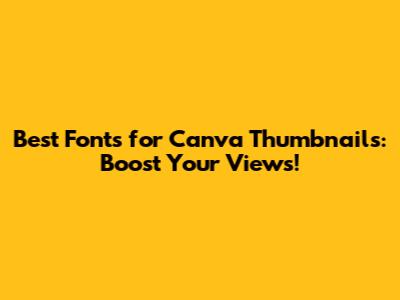
Best Fonts For Canva Thumbnails: Boost Your Views!
Creating eye-catching thumbnails is super important for getting more views on your videos or grabbing attention on social media. And Canva makes it easy! But with so many fonts to choose from, how do you pick the best fonts for your thumbnails? Don't worry, guys, I've got you covered! This guide will walk you through selecting fonts that not only look great but also help your content stand out from the crowd.
Why Font Choice Matters for Thumbnails
Think of your thumbnail as a mini-advertisement. It's the first thing people see, and it needs to make a strong impression fast. The right font can communicate the tone and topic of your content instantly. A playful font might suit a comedy video, while a bold, strong font could be perfect for a tutorial or announcement. Choosing the wrong font, on the other hand, can make your thumbnail look unprofessional or, even worse, cause people to scroll right past it! The best fonts are those that are legible, attention-grabbing, and representative of your brand and content. Legibility is key; if people can't read your text, they won't click. Attention-grabbing fonts draw the eye and pique curiosity. And fonts that match your brand help maintain consistency and build recognition. Ultimately, the font you select plays a crucial role in determining whether someone clicks on your thumbnail and engages with your content. Investing time in selecting appropriate fonts can significantly improve click-through rates and overall viewership.
Top Font Recommendations for Canva Thumbnails
Okay, let's dive into some specific font recommendations that work well in Canva for thumbnails. I've broken them down into categories to make it easier to find what you're looking for. Remember, the best fonts will depend on your specific style and the message you want to convey.
Bold and Impactful Fonts
- Bebas Neue: This is a classic for a reason! It's tall, clean, and super legible, even at smaller sizes. It's great for headlines and titles that need to pop. Bebas Neue is a sans-serif font known for its clean lines and tall, condensed design. Its bold presence makes it highly legible and impactful, even in smaller sizes, rendering it an excellent choice for thumbnail text that needs to grab attention instantly. Its versatility extends to various content themes, from informative tutorials to engaging vlogs. Whether you're announcing a new product, sharing tips, or creating eye-catching titles, Bebas Neue helps ensure your message is seen and read, contributing to higher click-through rates and audience engagement. Its widespread popularity and timeless appeal make it a staple in any content creator's toolkit, reinforcing its status as a top recommendation for Canva thumbnails.
- Montserrat: A versatile sans-serif that comes in various weights, making it easy to find the perfect level of boldness. Montserrat is a versatile sans-serif font that offers a range of weights, making it easy to customize your thumbnail text for the perfect level of emphasis. Its clean and modern design ensures legibility across different sizes, making it suitable for both headlines and supporting text. The adaptability of Montserrat allows it to complement various content styles, from professional tutorials to casual vlogs, ensuring your message is communicated effectively. By carefully selecting the appropriate weight, you can create a balanced and visually appealing thumbnail that grabs viewers' attention and encourages clicks. Its widespread use and positive reception among designers and content creators further solidify its reputation as a reliable choice for enhancing the visual impact of your Canva thumbnails.
- Oswald: Another strong sans-serif option that's slightly more rounded than Bebas Neue. Oswald is a sturdy sans-serif font that offers a slightly rounded appearance compared to other bold fonts like Bebas Neue. This subtle difference provides a softer, more approachable feel, making it an excellent option for thumbnails aiming to convey a friendly yet authoritative tone. Its clear and legible design ensures that your message remains easily readable, even at smaller sizes, enhancing the overall impact of your thumbnail. Oswald's versatility makes it suitable for a wide range of content, from educational videos to engaging personal vlogs. Its rounded edges help create a welcoming visual that can attract more viewers and encourage them to click, making it a valuable asset in your thumbnail design toolkit.
Modern and Stylish Fonts
- Raleway: An elegant sans-serif that works well for a variety of topics. Raleway is an elegant sans-serif font that offers a refined and stylish look, making it a great choice for a variety of topics. Its clean lines and balanced letterforms ensure legibility and visual appeal, enhancing the overall aesthetic of your thumbnails. The versatility of Raleway allows it to seamlessly adapt to different content styles, from sophisticated tutorials to creative vlogs, adding a touch of class to your visuals. Whether you're creating thumbnails for beauty, fashion, or lifestyle content, Raleway helps convey a sense of elegance and professionalism, attracting viewers and encouraging them to explore your content further. Its widespread popularity and positive reception among designers make it a reliable option for enhancing the visual impact of your Canva thumbnails.
- Poppins: A geometric sans-serif that's clean, modern, and easy to read. Poppins is a geometric sans-serif font that combines cleanliness, modernity, and readability, making it an excellent choice for Canva thumbnails. Its simple yet stylish design ensures that your message is easily conveyed, even at smaller sizes. The versatility of Poppins allows it to adapt seamlessly to various content styles, from tech tutorials to creative vlogs, ensuring a cohesive visual appearance. Whether you're highlighting key points, announcing updates, or simply adding text to your thumbnails, Poppins helps create a polished and professional look that attracts viewers and encourages engagement. Its geometric structure and balanced letterforms make it a reliable and visually appealing option for enhancing the overall impact of your thumbnails.
- Lato: A readable sans-serif that's friendly and approachable. Lato is a readable sans-serif font known for its friendly and approachable appearance, making it an excellent choice for Canva thumbnails aiming to connect with viewers. Its open letterforms and balanced design ensure legibility across different sizes, allowing your message to be easily understood. The versatility of Lato makes it suitable for a wide range of content styles, from informative tutorials to engaging personal vlogs. Whether you're sharing tips, telling stories, or simply adding text to your thumbnails, Lato helps create a welcoming visual that encourages clicks and engagement. Its widespread popularity and positive reception among designers further solidify its reputation as a reliable option for enhancing the visual impact of your thumbnails.
Creative and Unique Fonts
- Luckiest Guy: A fun and quirky font that's great for grabbing attention. Luckiest Guy is a fun and quirky font designed to grab attention, making it an excellent choice for Canva thumbnails that need a playful touch. Its bold, cartoon-like letters instantly draw the eye and create a memorable visual impact. While not suitable for all content types, Luckiest Guy works exceptionally well for videos targeting a younger audience or those with a lighthearted, comedic theme. This font is particularly effective for creating thumbnails that promote entertainment, gaming, or animated content. By using Luckiest Guy, you can inject personality and excitement into your thumbnails, making them stand out in a crowded online environment. Its unique style helps attract viewers and encourages them to click, boosting your video's visibility and engagement.
- Permanent Marker: Mimics handwriting, giving your thumbnail a personal touch. Permanent Marker mimics handwriting, giving your Canva thumbnails a personal and informal touch that can enhance viewer engagement. This font adds a sense of authenticity and can make your thumbnails stand out in a sea of polished, digital designs. It works particularly well for DIY tutorials, personal vlogs, or any content where a human connection is key. The slightly imperfect, hand-drawn style of Permanent Marker creates a feeling of approachability and can make your audience feel more connected to your content. However, it's important to use this font sparingly and ensure it remains legible, as excessive use can reduce clarity. By incorporating Permanent Marker thoughtfully, you can add a unique and relatable element to your thumbnails, attracting more viewers and fostering a stronger connection with your audience.
- Amatic SC: A condensed, hand-drawn font that's great for titles. Amatic SC is a condensed, hand-drawn font that works exceptionally well for titles on Canva thumbnails, offering a unique and eye-catching aesthetic. Its narrow letterforms allow you to fit more text into a limited space without sacrificing readability. This font is particularly effective for creating a playful, informal feel, making it suitable for content such as DIY projects, travel vlogs, or creative tutorials. The hand-drawn style adds a personal touch, helping your thumbnails stand out from the crowd. Amatic SCâs condensed nature also means it pairs well with more standard body fonts, creating a balanced and visually appealing design. By using Amatic SC strategically, you can craft engaging thumbnails that capture attention and encourage viewers to click and explore your content.
Tips for Using Fonts Effectively in Canva Thumbnails
Choosing the best fonts is only half the battle. Here are some tips to help you use them effectively:
- Contrast is Key: Make sure your text stands out against the background. Use contrasting colors to make it pop. Contrast is key to ensuring that your text stands out against the background of your Canva thumbnails. Using contrasting colors helps your text pop and grab viewers' attention. For example, if you have a dark background, use light-colored text, and vice versa. This simple technique can significantly improve the readability and impact of your thumbnails. Experiment with different color combinations to find what works best for your specific content and brand. High contrast not only makes your text more visible but also adds visual interest, encouraging more clicks and engagement. Therefore, always prioritize contrast when designing your thumbnails to maximize their effectiveness.
- Limit the Number of Fonts: Stick to two fonts max â one for the headline and one for supporting text. Limiting the number of fonts you use on your Canva thumbnails to a maximum of twoâone for the headline and one for supporting textâis crucial for maintaining a clean and professional look. Using too many fonts can make your thumbnails appear cluttered and confusing, detracting from the overall message. By sticking to two complementary fonts, you create a cohesive visual hierarchy that guides the viewer's eye and enhances readability. Choose a bold and eye-catching font for the headline to grab attention and a simpler, more legible font for any additional text. This approach ensures that your thumbnails are both visually appealing and easy to understand, leading to higher click-through rates and audience engagement. Therefore, simplicity and consistency in font usage are key to effective thumbnail design.
- Consider Font Size: Ensure your text is large enough to be easily read on small screens. Considering the font size on your Canva thumbnails is essential, especially since most viewers will be seeing them on small screens. Ensure that your text is large enough to be easily read and understood at a glance. Small, cramped text can be difficult to decipher, causing potential viewers to scroll past your content. Increase the font size to make your message clear and prominent. Also, keep in mind the overall design and avoid overcrowding the thumbnail with too much text. A larger, more legible font can significantly improve the click-through rate, as viewers are more likely to engage with content that is easy to process. Therefore, prioritizing readability by adjusting the font size is a simple yet effective way to enhance your thumbnail's performance.
- Use Canva's Text Effects: Experiment with shadows, outlines, and other effects to make your text stand out even more. Using Canva's text effects can significantly enhance the visual appeal of your thumbnails and make your text stand out even more. Experimenting with shadows, outlines, and other effects can add depth and dimension to your text, making it pop against the background. For example, adding a subtle shadow can create a 3D effect, while an outline can define the edges of your letters and improve readability. Canva offers a variety of customizable text effects, allowing you to tailor the look to match your specific content and brand. However, itâs important to use these effects judiciously; overdoing it can make your thumbnails look cluttered and unprofessional. A well-placed shadow or a clean outline can be the difference between a thumbnail that blends in and one that grabs attention. Therefore, leveraging Canva's text effects creatively is a powerful way to elevate your thumbnail design.
Level Up Your Thumbnails Today
So there you have it! A guide to the best fonts for Canva thumbnails. By choosing the right fonts and using them effectively, you can create thumbnails that attract attention, communicate your message clearly, and ultimately, get more views. Now go get creative and make some awesome thumbnails!
Choosing the best fonts for your Canva thumbnails is more than just aesthetics; it's about making a strong first impression and communicating the value of your content. By implementing these tips and experimenting with different font combinations, you'll be well on your way to creating thumbnails that not only look great but also drive engagement and grow your audience. Remember, your thumbnail is often the first interaction potential viewers have with your content, so make it count!